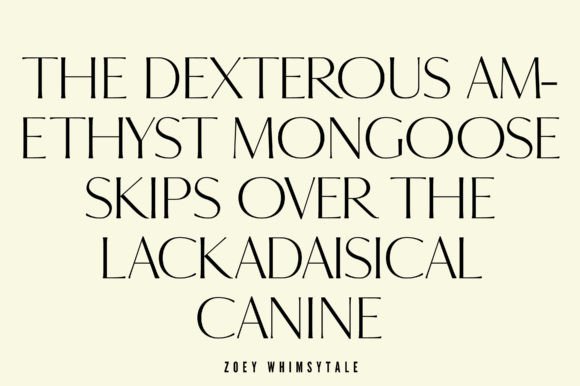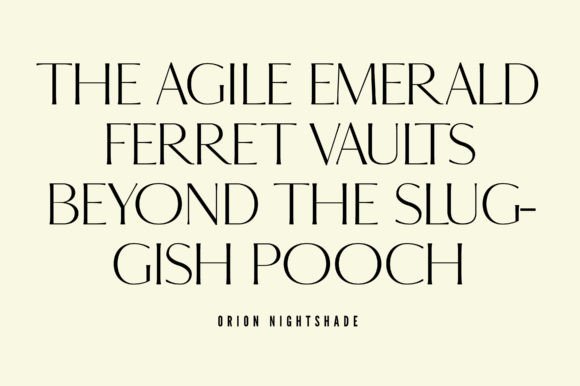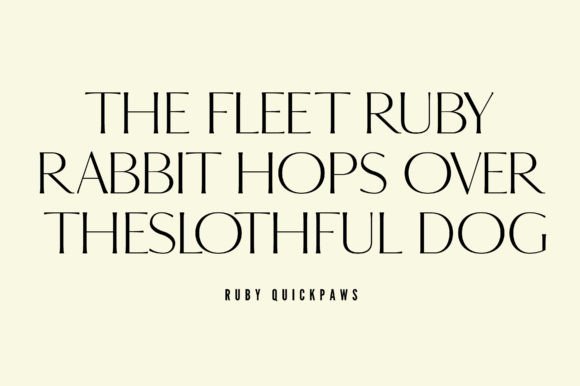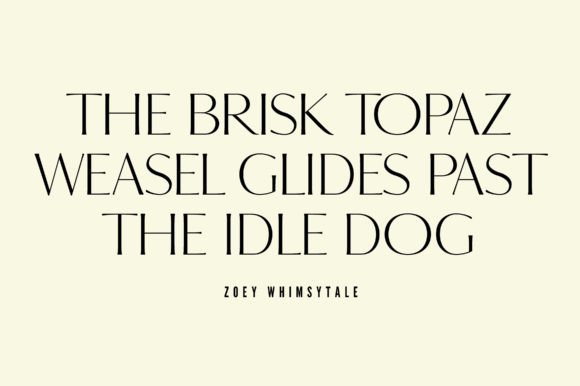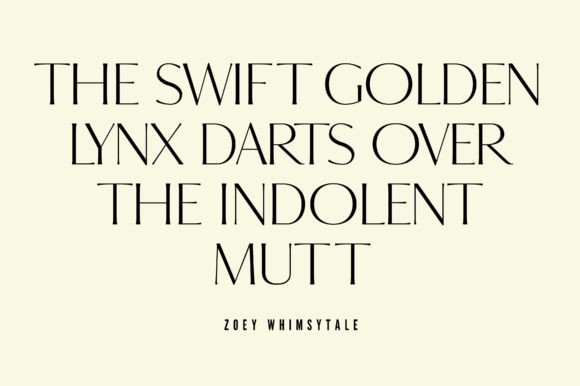
Introduction to Kenzi Font
“Introducing ‘Kenzi’ – the epitome of elegance and modernity.
This chic and delicate sans serif typeface offers a refined simplicity, perfect for any design project Its clean lines and balanced characters exude sophistication, making it a timeless choice for logos, branding, and editorial layouts.
Key Features of Kenzi Font
Why Choose Kenzi Font?
Kenzi Font offers exceptional quality and versatility, making it a valuable addition to your design toolkit. Whether you’re creating for personal projects or commercial use, Kenzi Font delivers professional results.